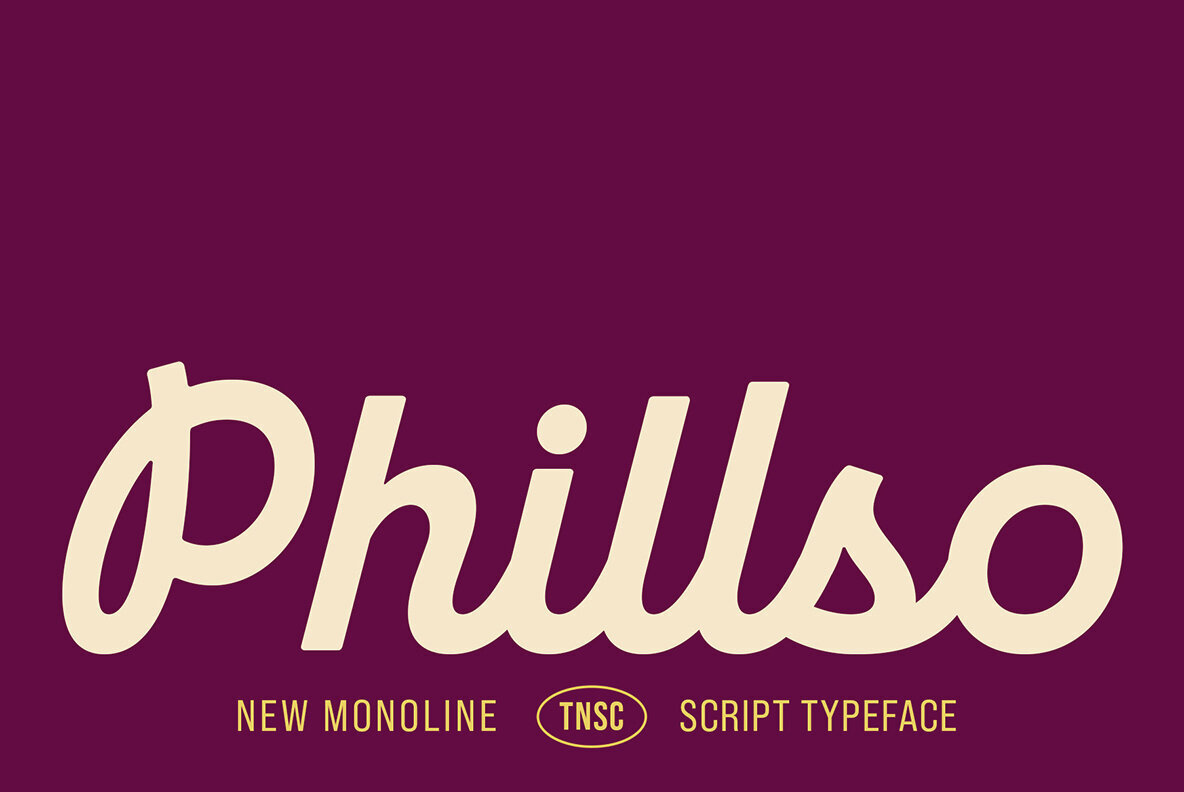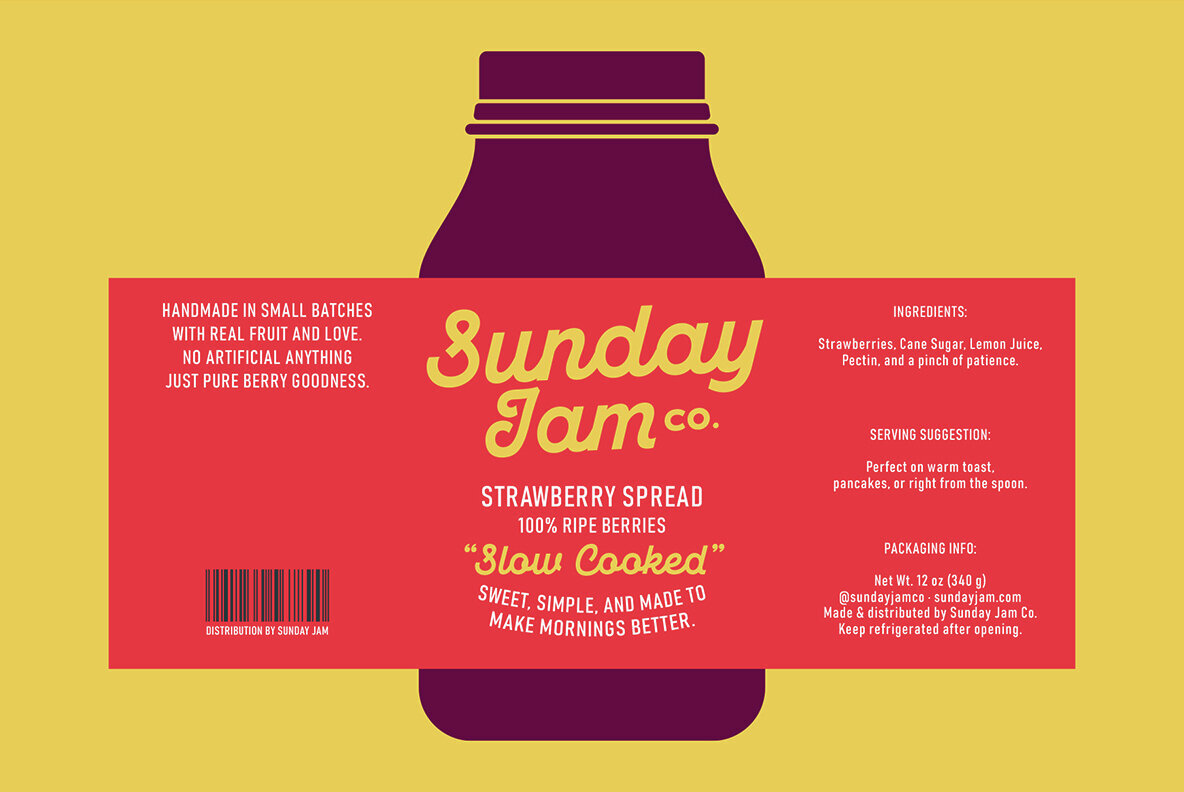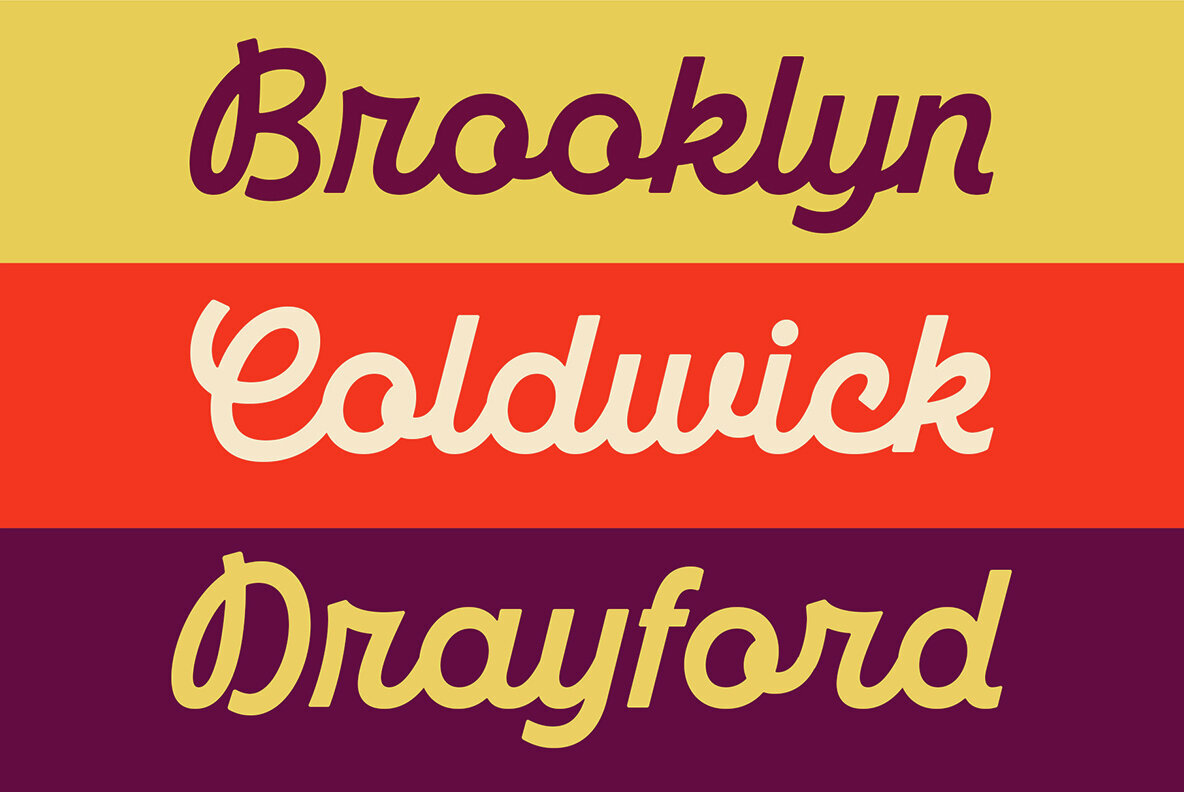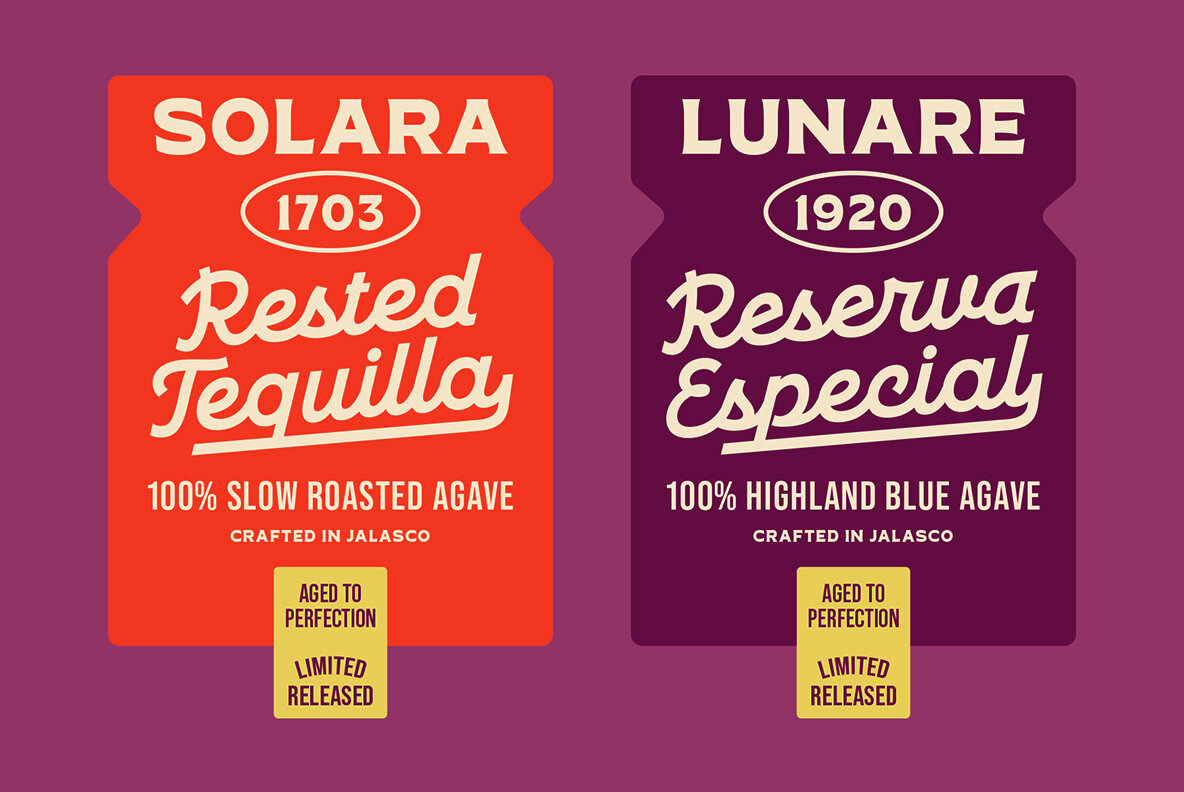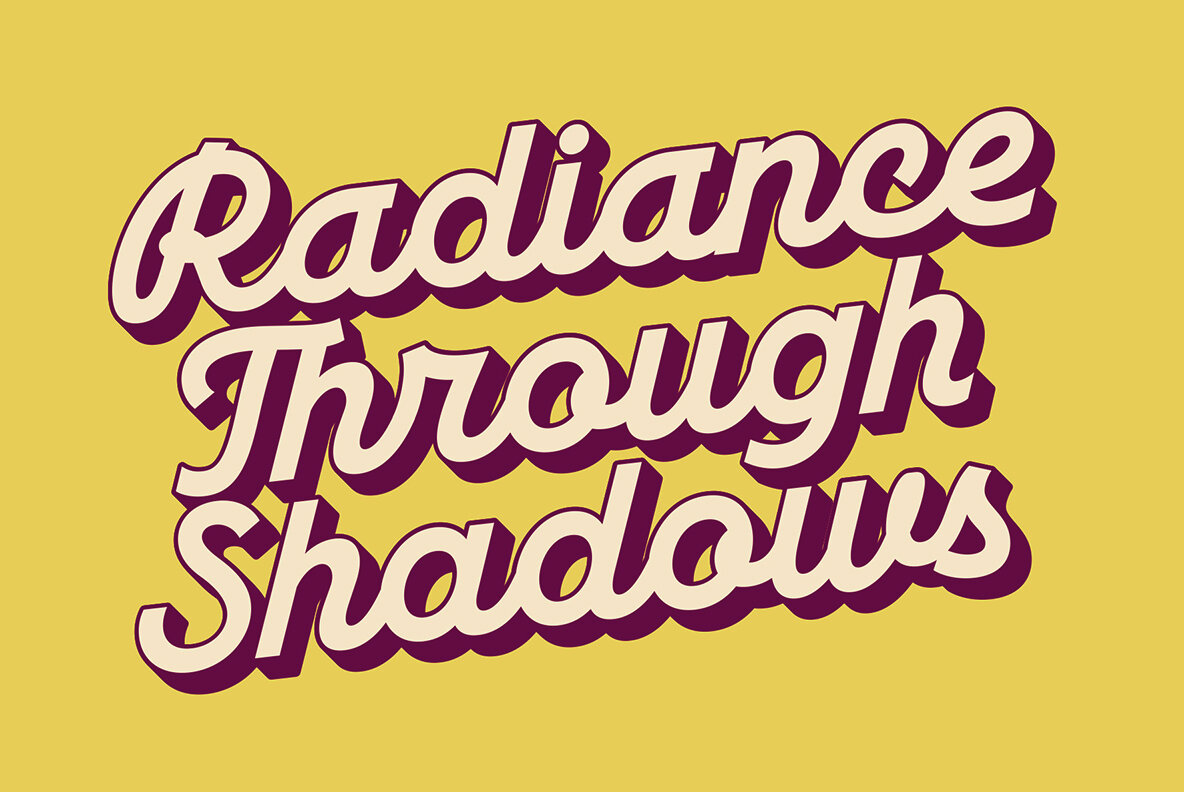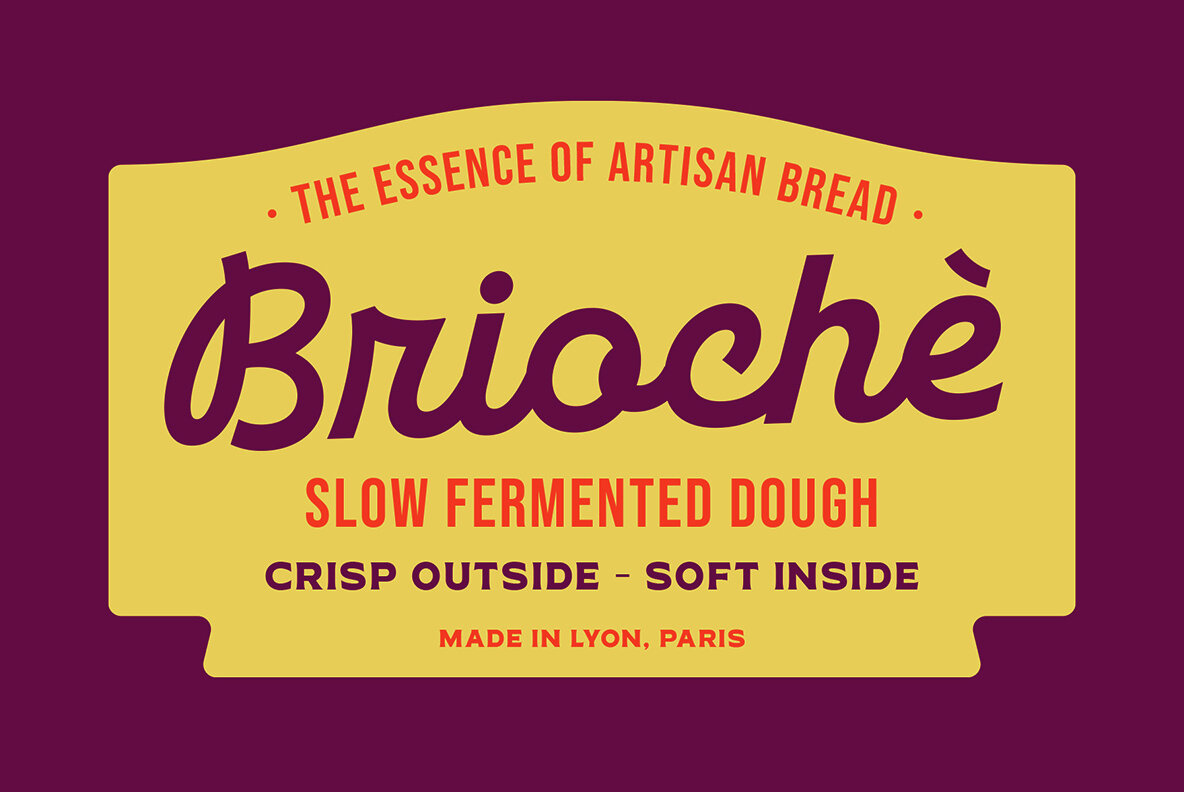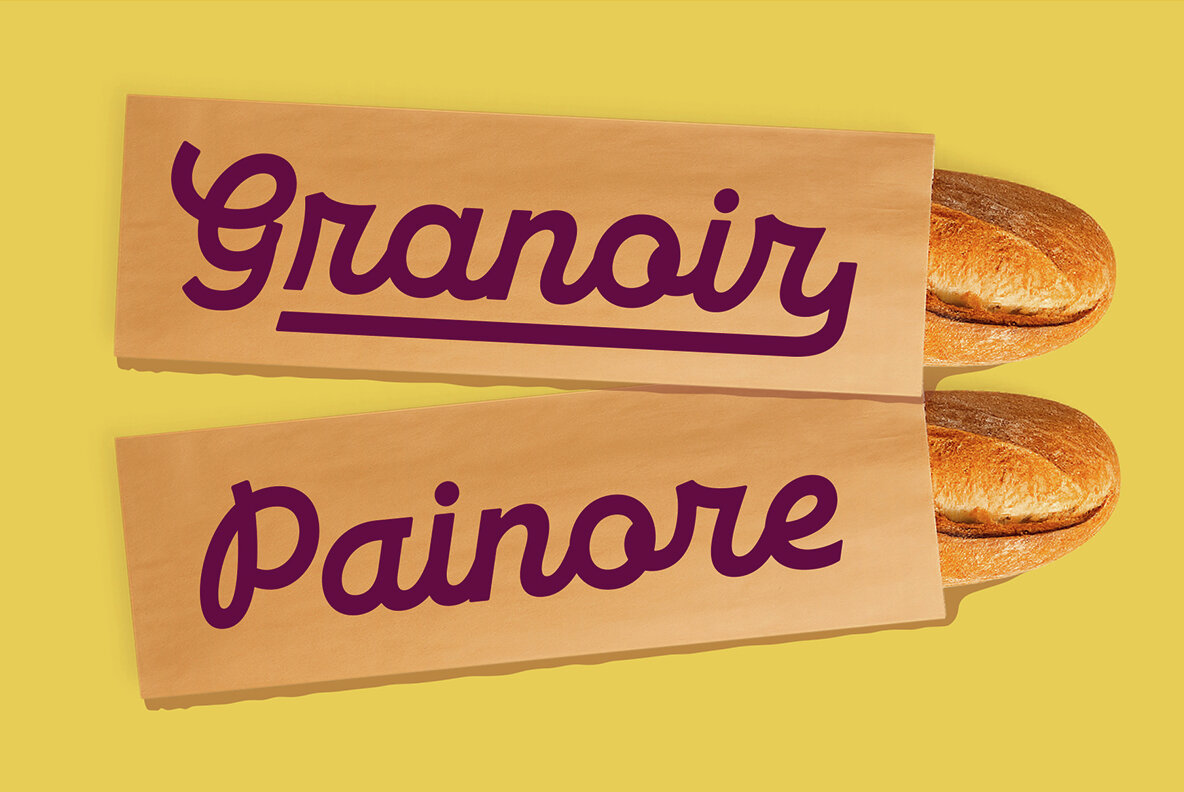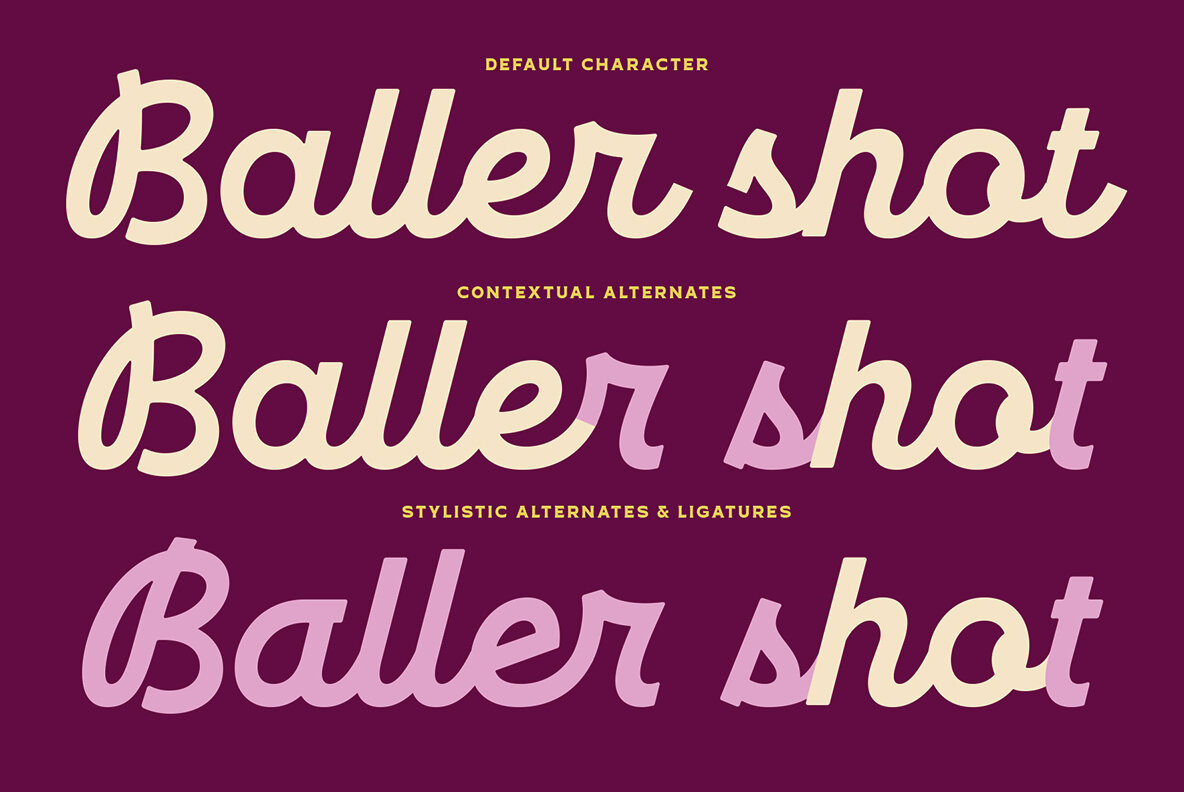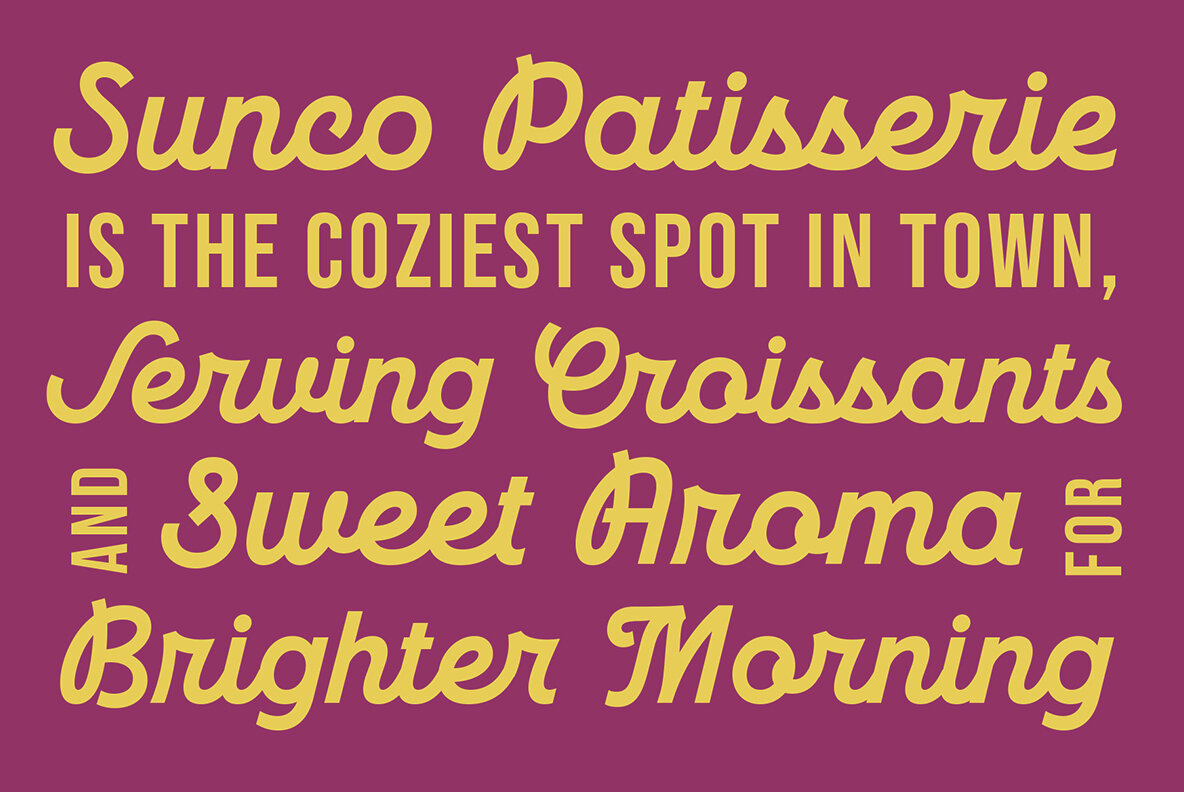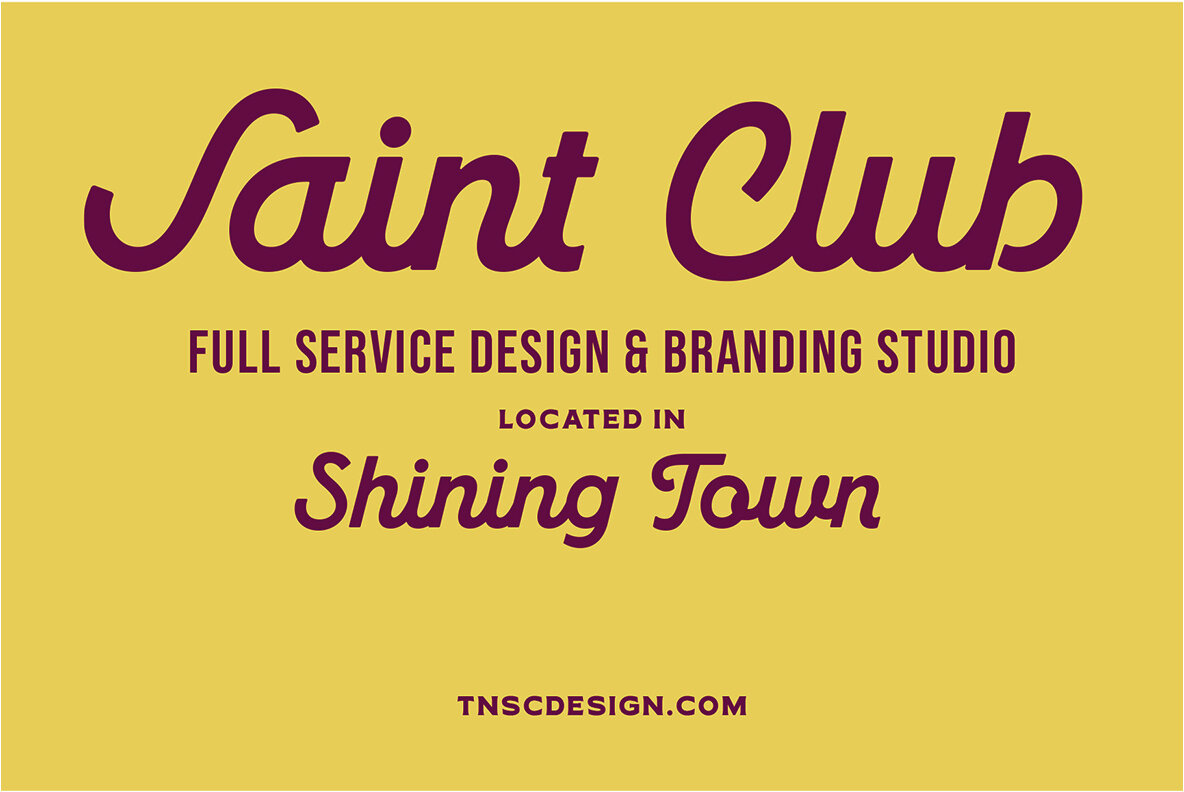
TNSC Phillso Font
Phillso Regular
Phillso Soft
TNSC Phillso is a bold monoline script that stands out in any setting. With elegant, flowing lines and a retro-inspired touch, this font infuses warmth and character into your projects. Its smooth curves make it a natural fit for branding, eye-catching logos, café menus, and vintage packaging. Add depth and personality to your visual identity with this unique script, designed to create a memorable impression wherever it appears.TNSC Phillso Monoline Script Font